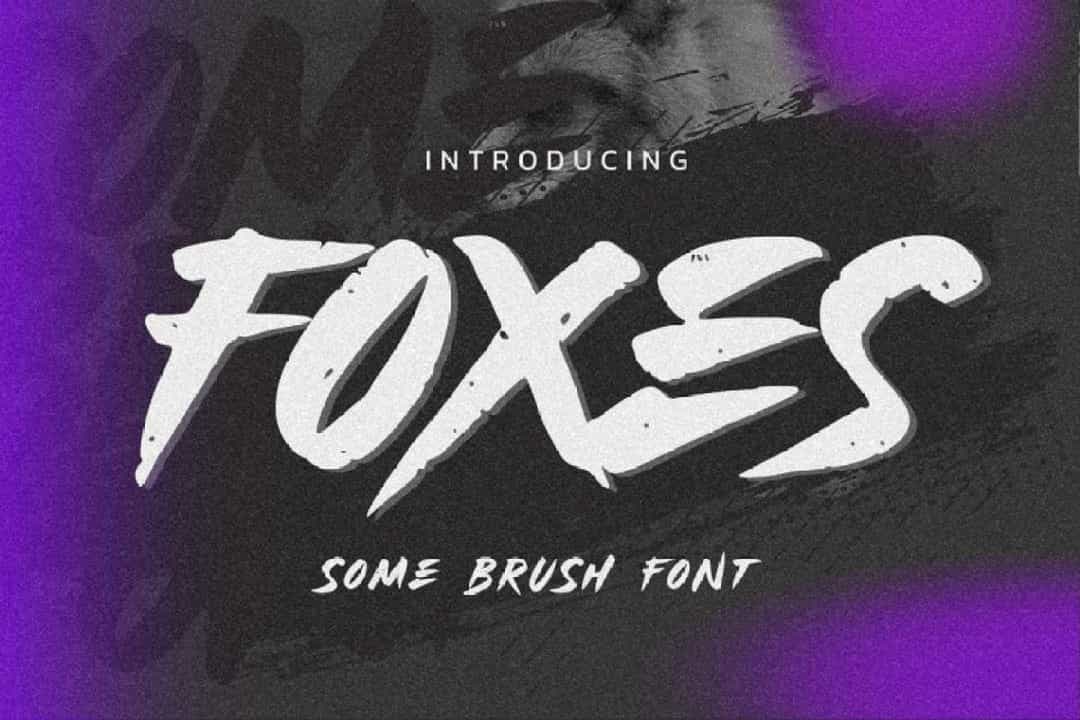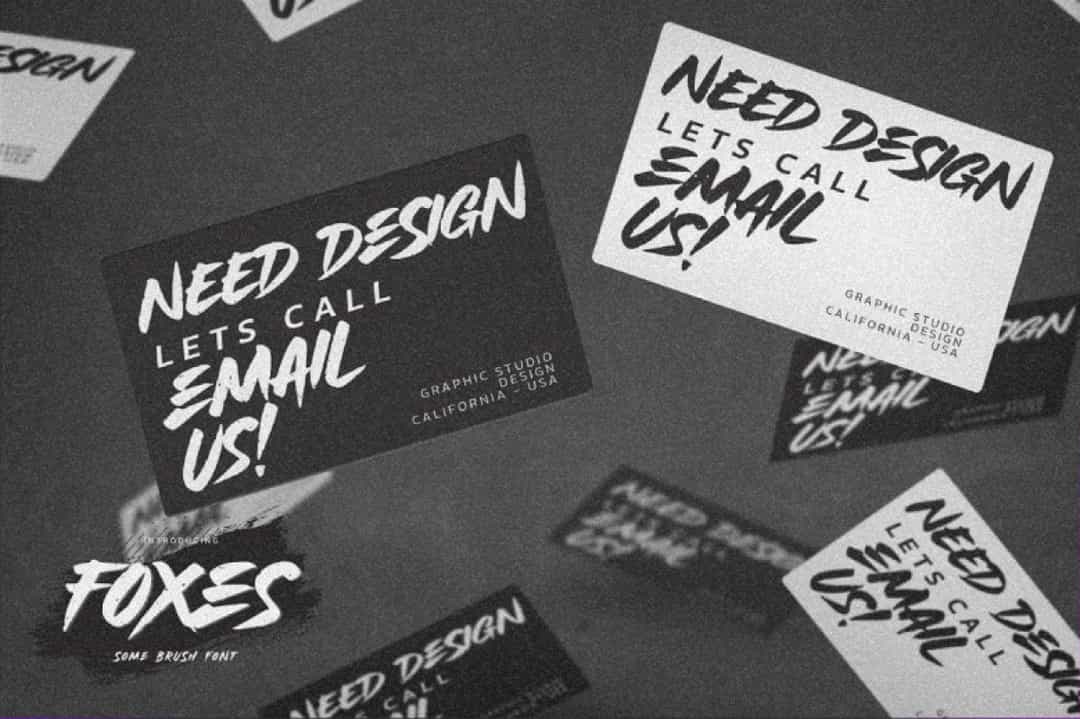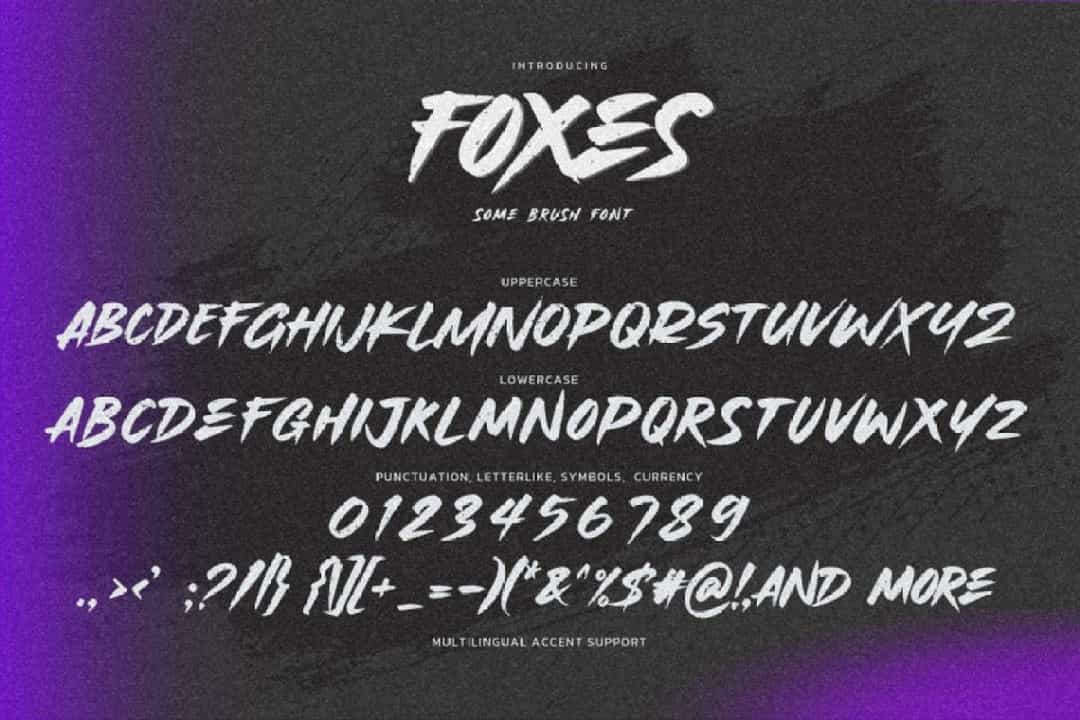
Discover Foxes Font, part of the Brush Display collection—a versatile and unique font perfect for adding a personal touch to your projects. Download it for free and enjoy crafting designs with style, from invitations to social media posts. This font is available exclusively for personal use, giving you the freedom to create without limits. Unlock your creativity with Foxes Font today!
Foxes is a brush-based display font with an eye-catching, dramatic style. Ideal for creative projects requiring modern typography such as logos or printed quotes invitations cards product packaging headers product packaging stationery special events this font stands out in any crowd.